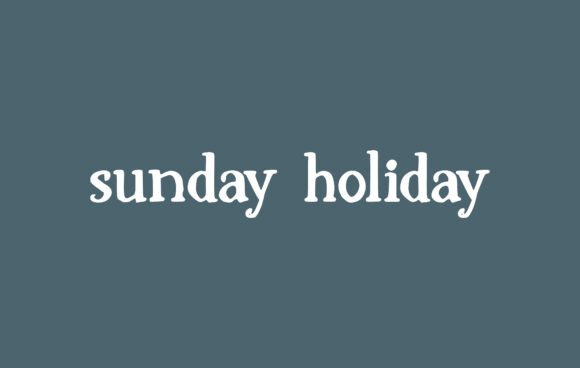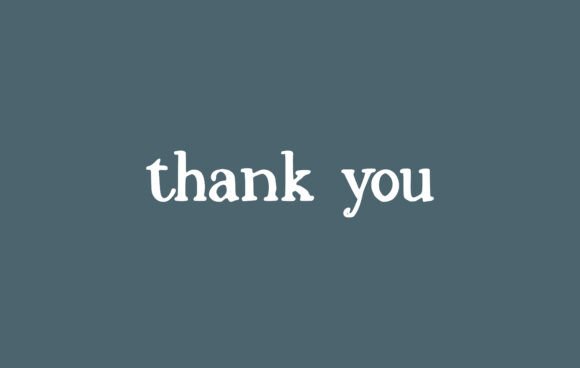
Introduction to Shrimp and Grits Font
As a designer, there’s nothing quite like the thrill of discovering a new font that perfectly captures the essence of a creative project. It’s that moment when words and images come together in harmony, and your design goes from good to great. I recall a recent project where I was working on a magazine spread, and I stumbled upon the perfect font – the Shrimp and Grits Font. Its authentic handwritten style and romantic touch instantly elevated the design, making it stand out from the rest.
The Shrimp and Grits Font is a true gem for designers, offering a high-quality, legible font that’s perfect for titles, body text, and even social media graphics. With its transparent background and versatility, it’s a valuable resource for any creative project. Whether you’re working on a branding campaign, designing wedding invitations, or crafting social media posts, this font is sure to be a favorite.
Key Features of Shrimp and Grits Font
- Unique Southern-inspired design, perfect for creative projects related to seafood, cuisine, or coastal themes.
- High-quality font with transparent background, ideal for use on digital and print materials.
- Perfect for use in restaurant menus, food blogs, and other design projects requiring a touch of Southern charm.
Honest Review: Shrimp and Grits Font
As a designer, I’m always on the lookout for unique and high-quality fonts to add a touch of personality to my creative projects. The Shrimp and Grits Font caught my eye with its playful and quirky vibe, and I was excited to put it to the test.
Here are some things that work well about the Shrimp and Grits Font:
- ✨ The design is fresh and modern, with a clear nod to Southern cuisine.
- ⚠️ The font is limited to a single style, which may not offer the same level of flexibility as other font options.
- ⚠️ The design may not be suitable for all types of creative projects, particularly those that require a more formal or professional tone.
Overall, I’m impressed with the Shrimp and Grits Font’s unique design and high-quality aesthetic. While it may have some limitations, it’s a great resource for designers looking to add a touch of whimsy to their creative projects.
How to Use Shrimp and Grits Font
The Shrimp and Grits Font is a high-quality design resource that can add a touch of Southern charm to your creative project. This font is perfect for designers, artists, and writers who want to add a unique and elegant touch to their work.
Tips for Getting the Most Out of the Shrimp and Grits Font
To get the most out of the Shrimp and Grits Font, try using it in combination with other design elements, such as images and graphics. You can also experiment with different font sizes and colors to create a unique and eye-catching design.
The Shrimp and Grits Font is perfect for a variety of design projects, including:
- Restaurant menus and branding
- Magazine and newspaper articles